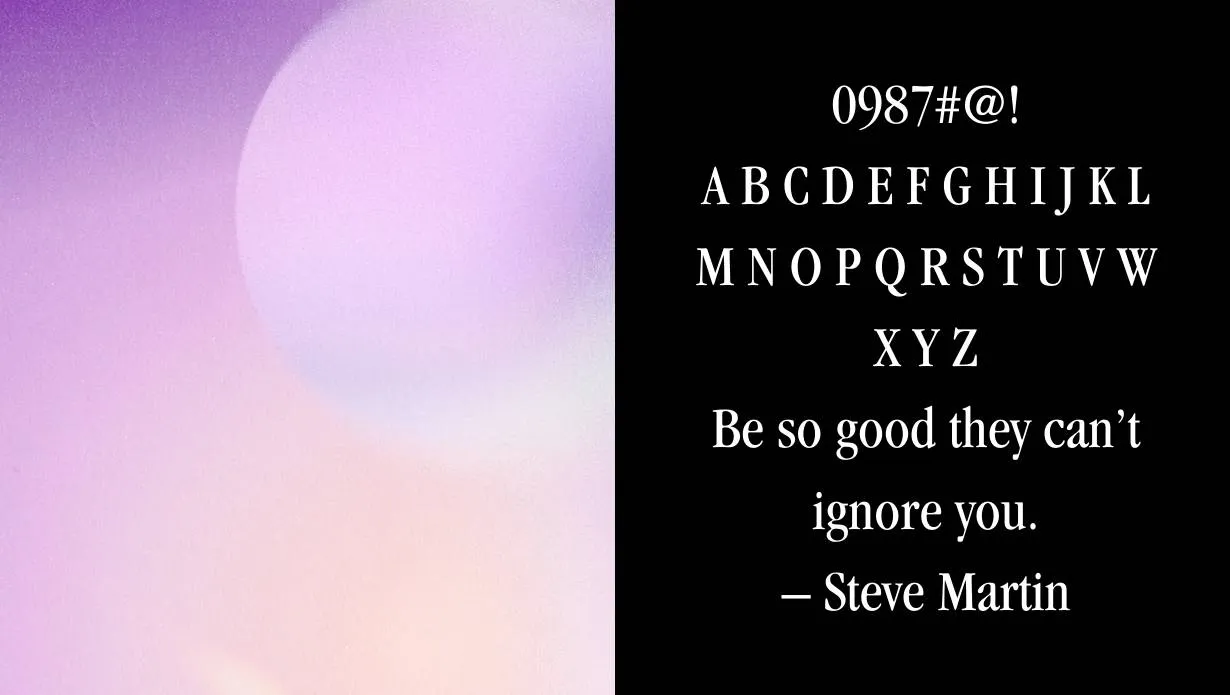
Today, we present a new stylish typeface that goes by the name Cheerios Font. This fascinating typeface was designed by ITC Foundry. It belongs to the Serif typeface. This classic typeface was on the name of American Cereal Brands. It is used for the logo of this famous Brand.
It is a very famous typeface and got massive fame in the deigns industry. In the year 1975, this awesome typeface was released to the general public. It supports almost 65 international Languages. Its alternative alegreya font is perfect for different designs.
Cheerios Font Family